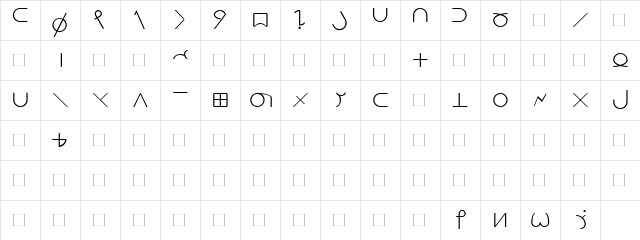
aul001 Regular
Design Context for aul001 Typeface
aul001 takes a measured approach to typography — its balanced proportions and neutral character make it a reliable workhorse for both digital and print work.